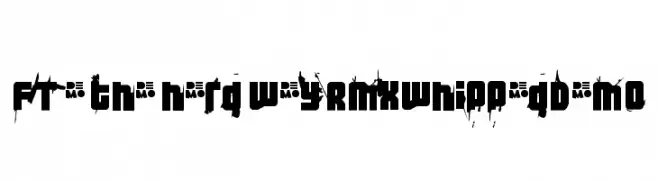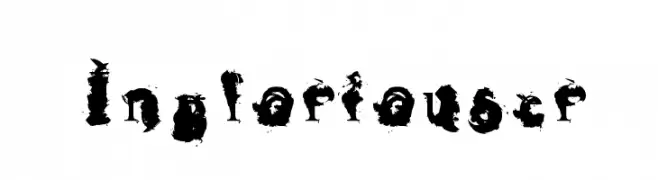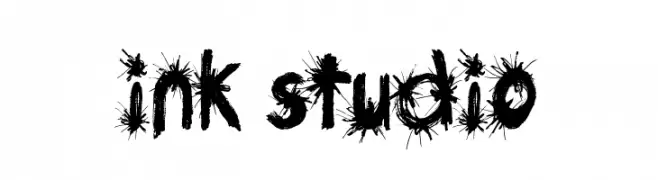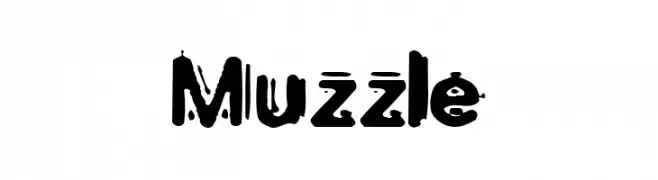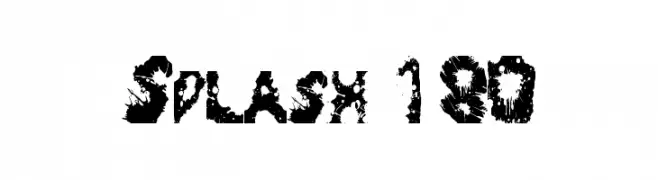
( Fonts by Matthew Austin Petty - www.disturbed.com )
A bold, distressed font with irregular edges and splatter details.
( Fonts by www.foamtrain.com )
A bold, distressed font with an ink-splattered, grunge aesthetic.
( Font by Jonathan Harris - www.tattoowoo.com )
A bold, spiky, ink-splattered decorative font with a raw, expressive style.
( Fonts by Andrey Chernevich - Mister Chek - www.misterchek.ru )
A bold, ink-splattered font with dynamic, brush-like strokes.
( Fonts by Dave Kellam - Brian Stuparyk - www.eightface.com )
A bold, distressed decorative font with an ink-splatter aesthetic.
( Fonts by www.fenotype.com )
A bold, grungy font with splatter elements and angular letterforms.